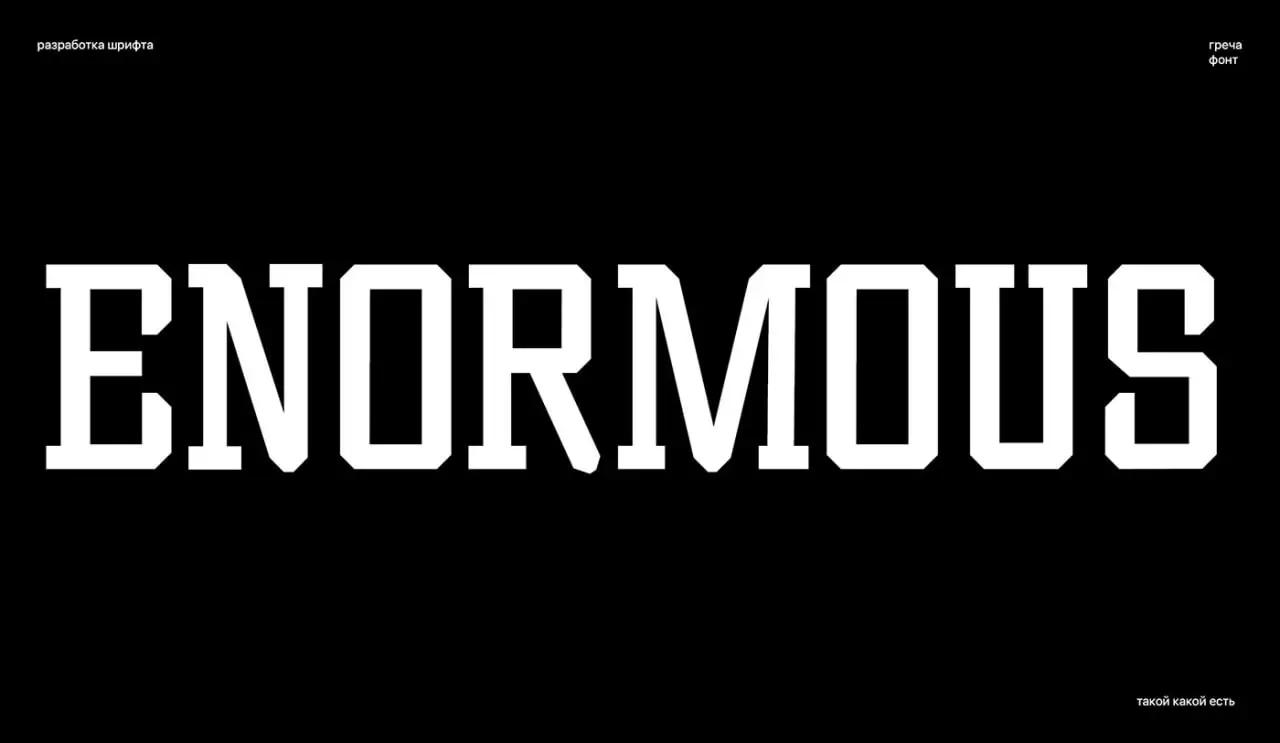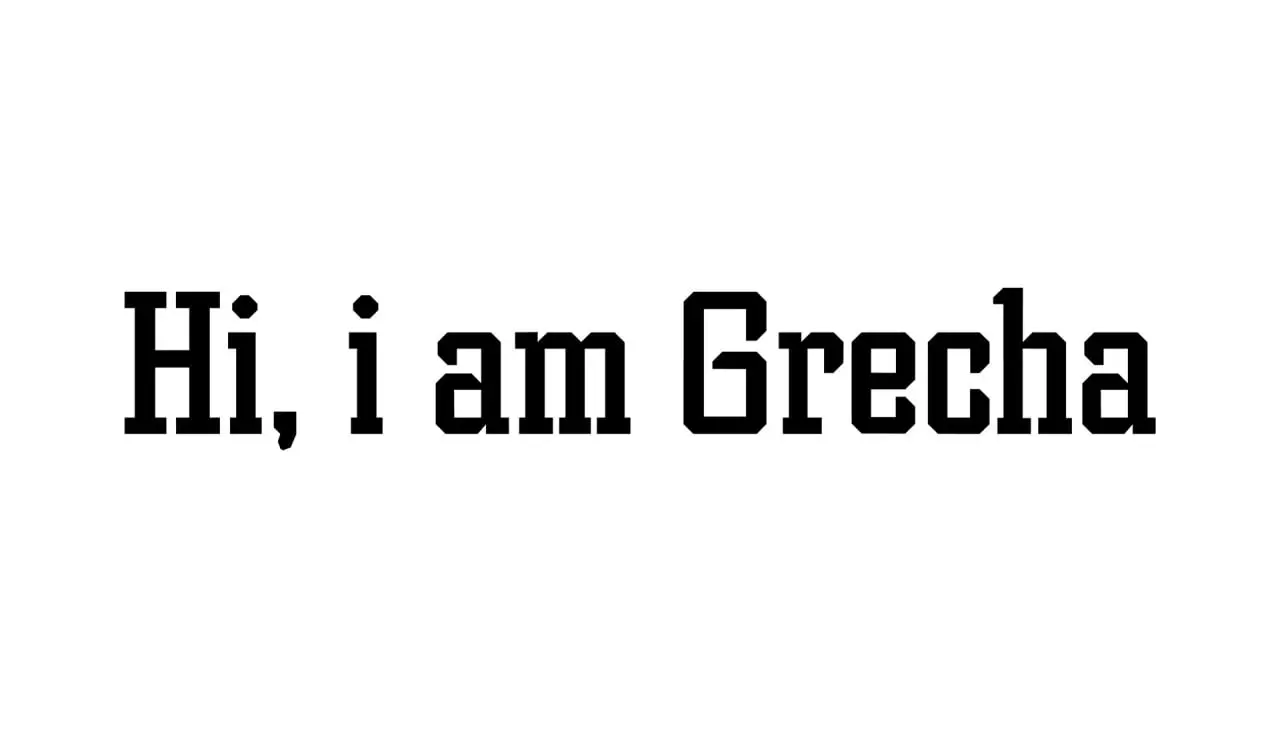
Grecha Font By Valera Cherevkov
The Grecha Font, designed by Valera Cherevkov, is a distinctive typeface that blends modern aesthetics with a touch of elegance. This font is perfect for a variety of applications, including branding, logos, web design, print materials, and user interfaces.
• Unique character design that stands out
• Multiple weights for versatile usage
• Supports a wide range of languages
• Ideal for creating eye-catching headlines and logos
• Utilize in both digital and print projects for maximum impact